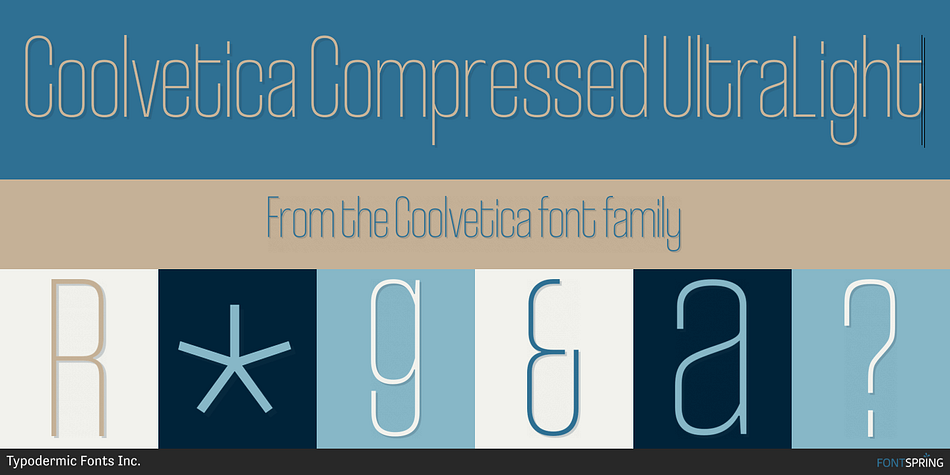
Coolvetica Compressed UltraLight
Coolvetica is a sans serif font family. This typeface has thirty-five styles and was published by Typodermic Fonts Inc.
Step back into the groovy era of the 1970s with Coolvetica, a sans-serif typeface that captures the essence of a time when Helvetica reigned supreme—and everyone wanted to put their own spin on it. This isn’t just another font; it’s a time machine that transports your designs to an age of funky creativity and typographic experimentation.
Coolvetica reimagines the retro custom display lettering style that dominated phototype catalogs of the era. With its extra-tight kerning and playful curls, it embodies the spirit of those outlandish Helvetica modifications that were all the rage. But don’t be fooled by its vintage inspiration—Coolvetica is a thoroughly modern display typeface ready to make a strong statement in contemporary designs.
The typeface’s condensed, compressed, and crammed styles all employ a flat-sided approach, an old-school strategy that’s become a rarity in today’s digital landscape. This unique feature gives Coolvetica an edge, allowing your designs to stand out in a sea of cookie-cutter typography. And with its inclusion of mathematical symbols, OpenType fractions, and numeric ordinals, Coolvetica proves that retro charm and modern functionality can coexist beautifully.
In today’s global design landscape, Coolvetica speaks the language of style across borders. Its character set spans an impressive array of writing systems, from Latin-based European languages to Vietnamese, Greek, and most Cyrillic-based scripts. Whether you’re designing for a local audience or an international campaign, Coolvetica ensures your message retains its groovy appeal—be it in English, Russian, or Vietnamese.
Why settle for the ordinary when your typography can be extraordinary? Coolvetica is an attitude, a statement, a celebration of an era when designers dared to be different. It’s for those who understand that sometimes, to move forward, you need to take inspiration from the past. So go ahead, give your next project that typographical flair it deserves. With Coolvetica, you’re not just choosing a font—you’re choosing to stand out, to be bold, and to bring a touch of vintage cool to the modern world of design.